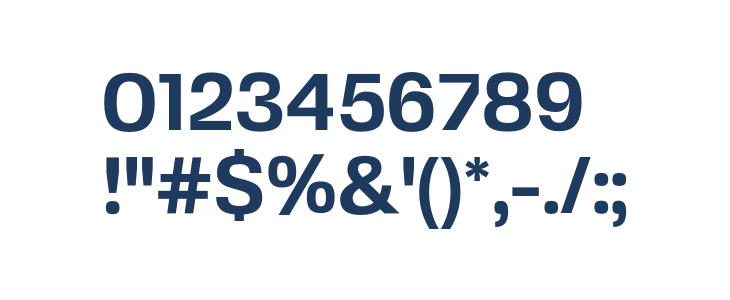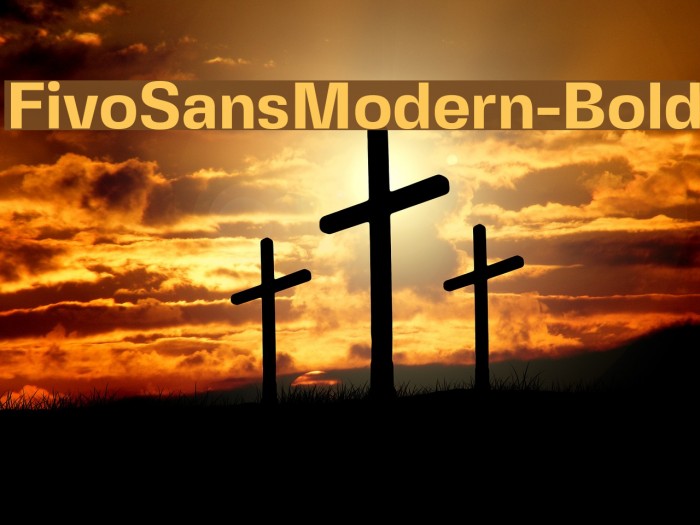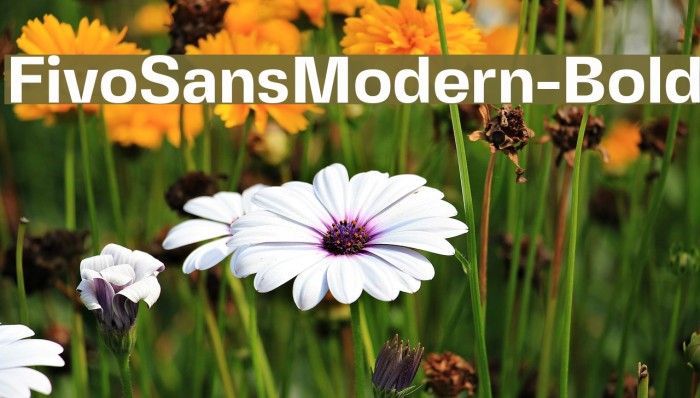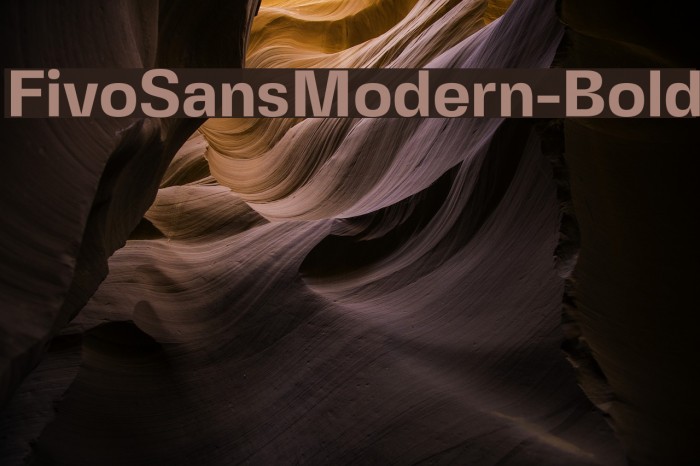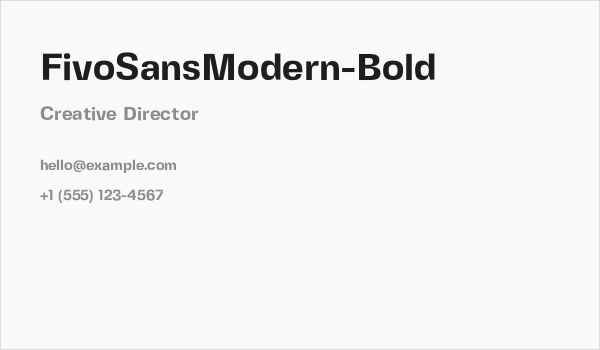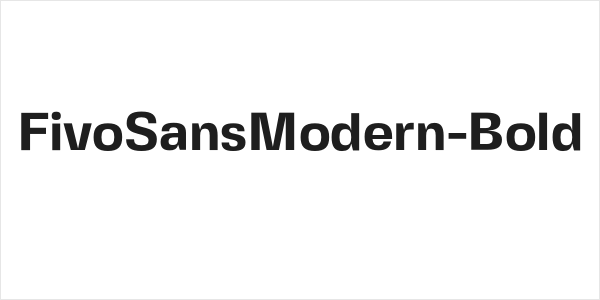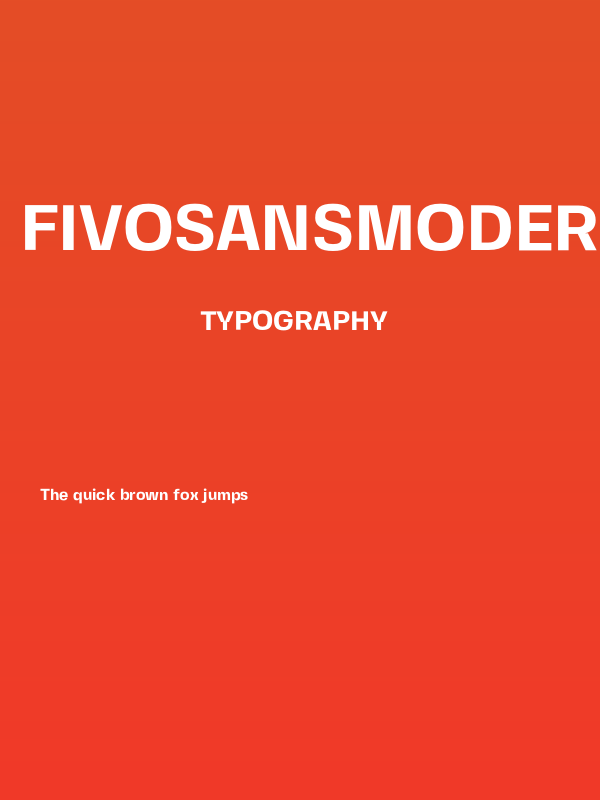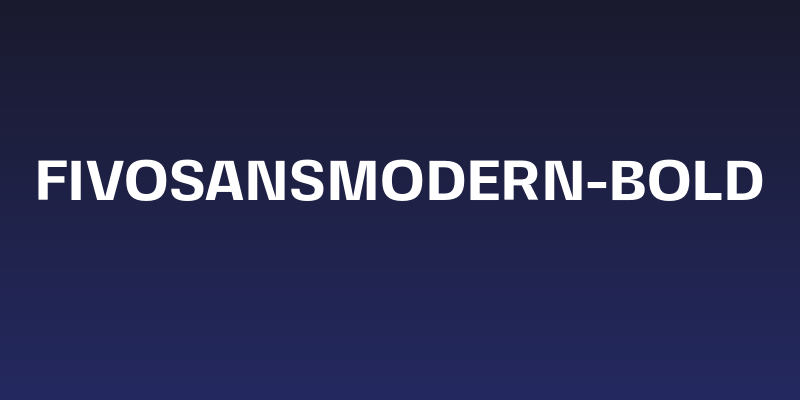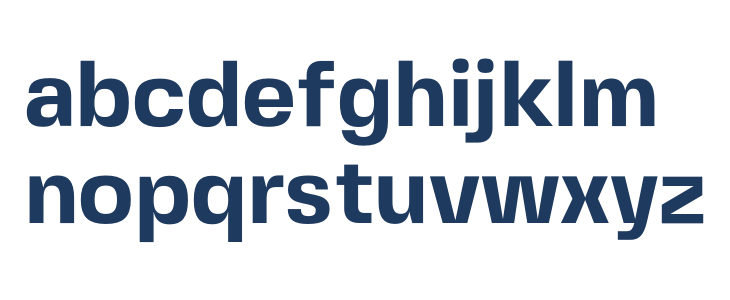
FivoSansModern-Bold Font
FivoSansModern-Bold Description
This font features a bold and modern sans-serif style, characterized by clean lines and a strong presence. The uppercase and lowercase letters are well-proportioned, offering a uniform appearance that enhances readability. The numerals are clear and distinct, making them suitable for various applications. Special characters are included, maintaining the font's cohesive look. The overall design is versatile, making it ideal for both digital and print media.
| Use Case | Headlines, Logos, Advertising |
| Proposed Projects | Ideal for branding, advertising, headlines, and digital content where a modern and bold statement is needed. |